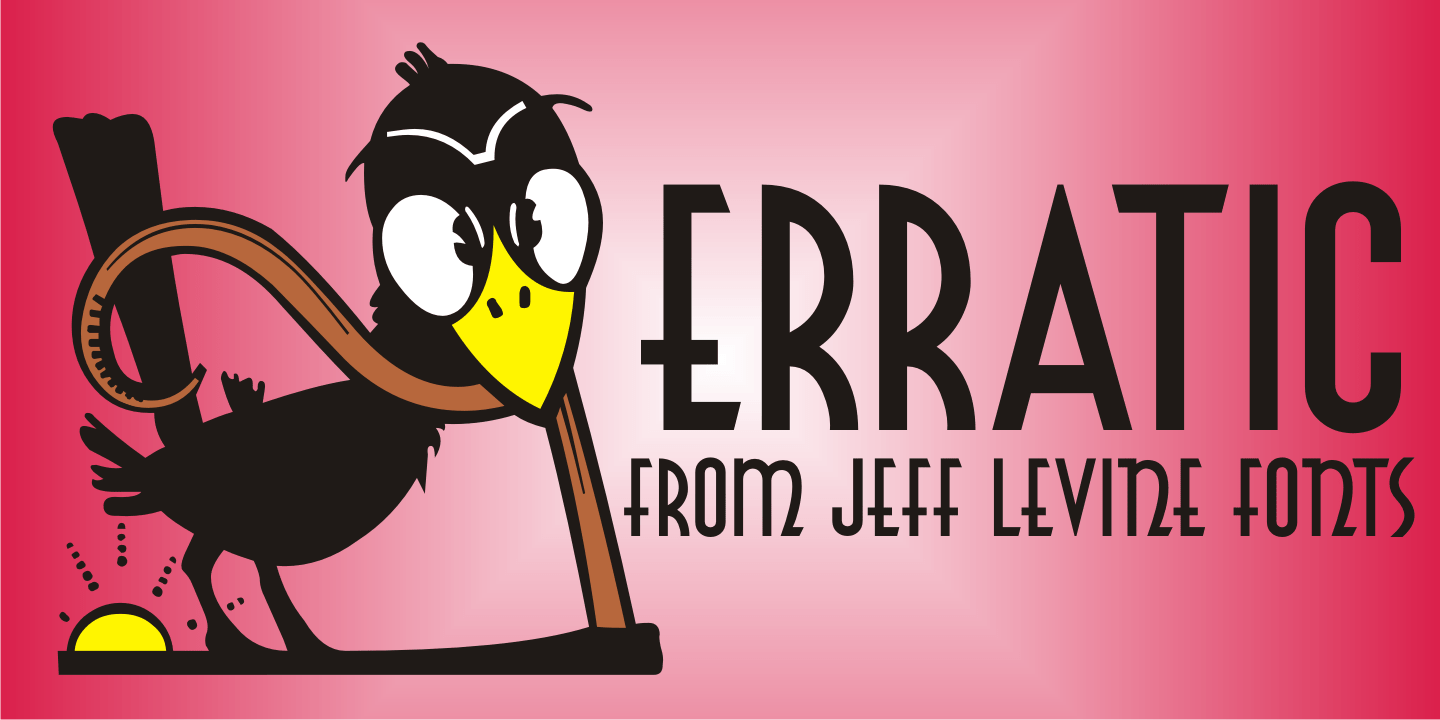
Erratic
Erratic JNL earns its name from the varying widths and shapes of the hand lettering found on some old Art-Deco era sheet music. Following this unusual pattern throughout the complete typeface, the user finds a mix of traditional Deco type design and an overly wide M, N, W and 8.
Erratic JNL Regular by Jeff Levine Fonts